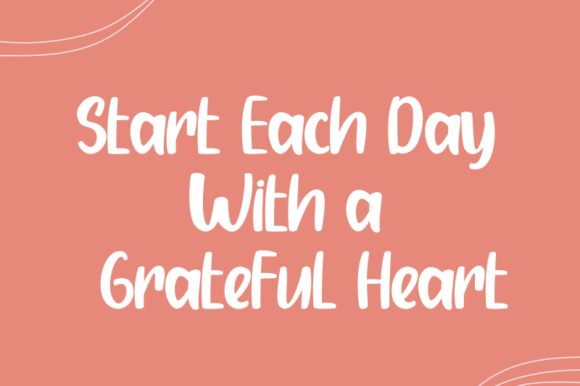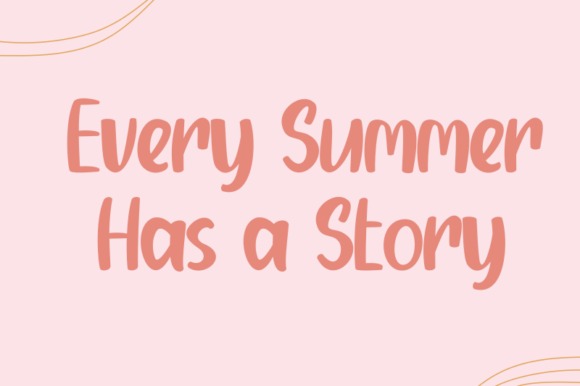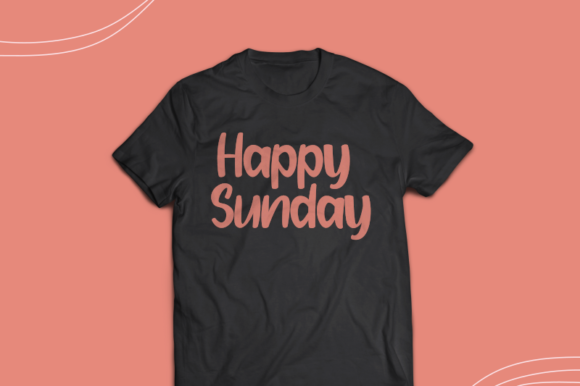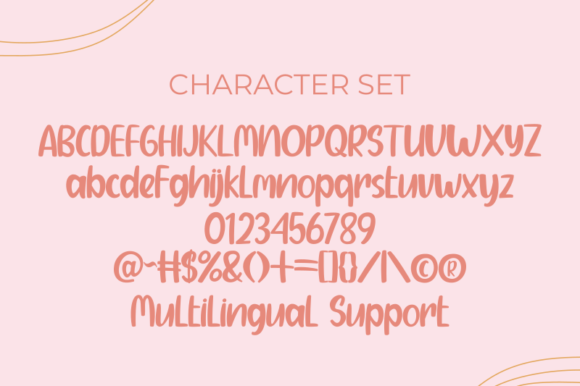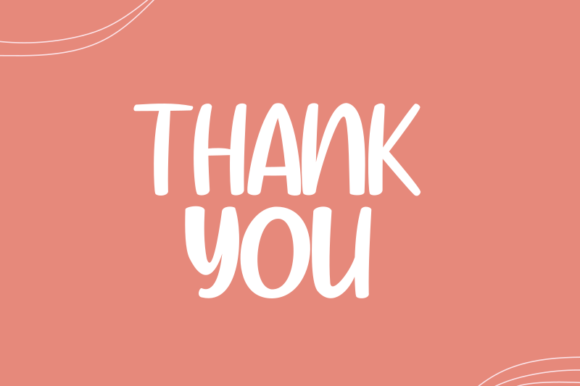
Discovering the Magic of Secret Place Font
Remember the moment when you stumbled upon that perfect font, and suddenly your creative project came to life? That’s exactly what happened to us when we discovered the Secret Place Font. Its whimsical and playful style is impossible to resist, making it a go-to choice for designers looking to add a touch of personality to their designs.
Whether you’re working on a new logo, creating a social media campaign, or designing a wedding invitation, the Secret Place Font is a valuable resource that can help bring your ideas to life. With its high-quality design and transparent background, this font is perfect for designers who want to create visually appealing and professional-looking designs.
Key Features of Secret Place Font
- Unique, hand-drawn style with intricate details and textures
Honest Review: Secret Place Font
As a designer, I’m always on the lookout for high-quality design resources that can elevate my creative projects. The Secret Place Font is one such resource that caught my attention, and I’m excited to share my honest review with you.
What works well: ✨ The Secret Place Font has a beautiful, unique aesthetic that’s perfect for adding a touch of elegance to your designs. It’s also available for free download, making it an excellent addition to any design arsenal. The font is available in various file formats, including OTF, TTF, and WOFF, ensuring seamless integration into most design software.
What doesn’t work well: ⚠️ One limitation of the Secret Place Font is that it’s not ideal for large-scale text or headings. The font’s design is more suited for smaller text sizes or as an accent font to add visual interest to your designs.
Overall impression: I’m impressed with the Secret Place Font’s design and versatility. While it may have some limitations, it’s a valuable resource for designers looking to add a unique touch to their creative projects. Whether you’re working on a design project or simply looking for a new font to experiment with, the Secret Place Font is definitely worth checking out.
- High-quality design with a unique aesthetic